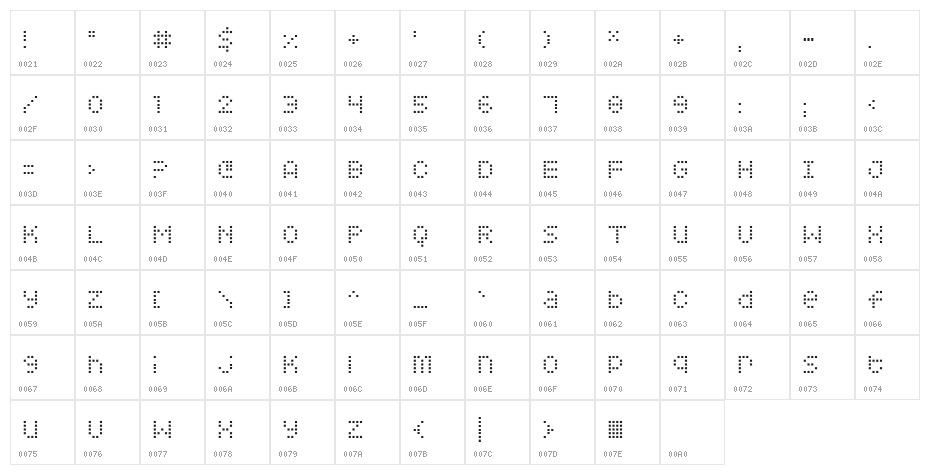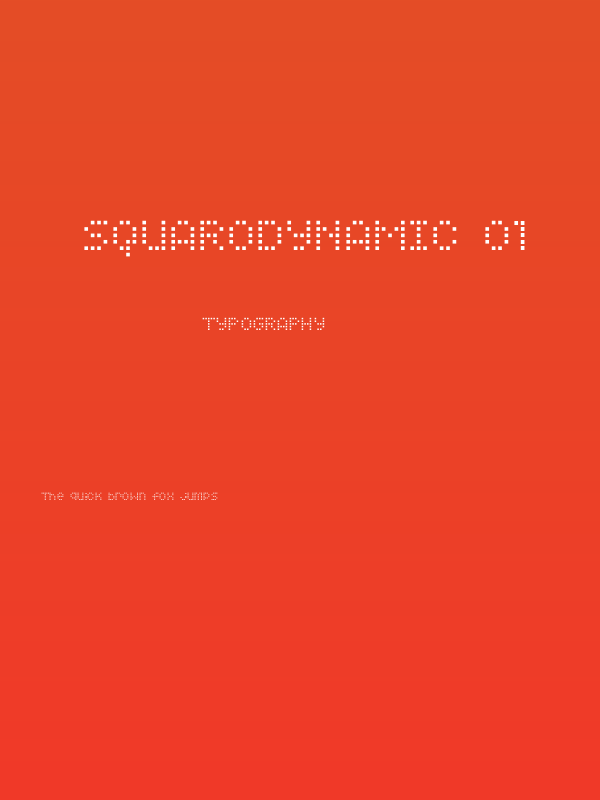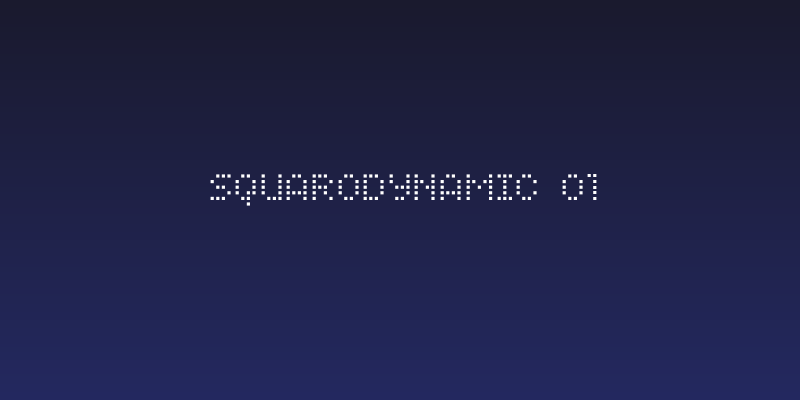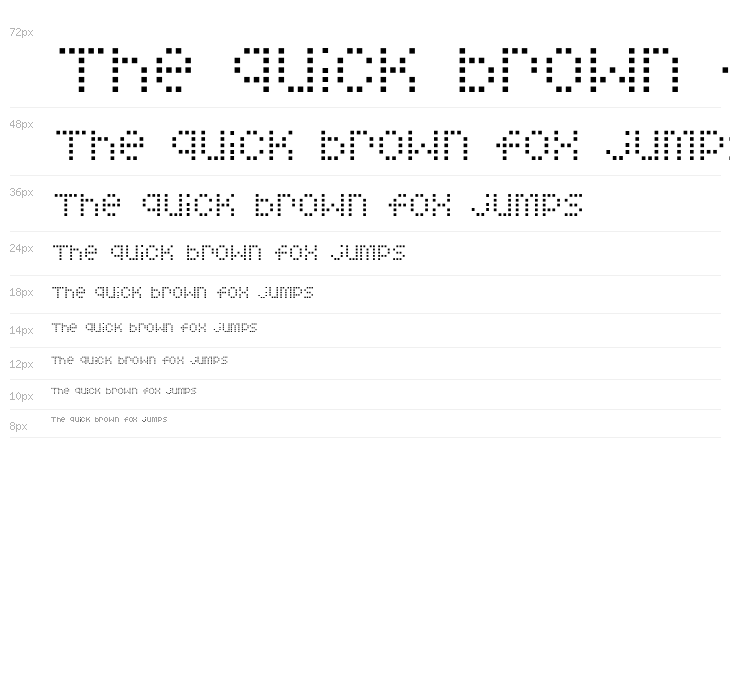
Squarodynamic 01 Font
Squarodynamic 01 Description
This font features a unique dot matrix design, where each character is constructed from a grid of evenly spaced dots. The style is reminiscent of digital displays and retro computing, offering a modern twist on classic pixel art. The uppercase and lowercase letters maintain a consistent height and width, creating a uniform appearance. Numbers and special characters are also designed with the same dot matrix pattern, ensuring cohesion across all elements. This font's geometric precision and modular structure make it ideal for projects that require a futuristic or technological aesthetic.
| Proposed Projects | Ideal for digital displays, tech-themed designs, retro gaming interfaces, and futuristic branding. |